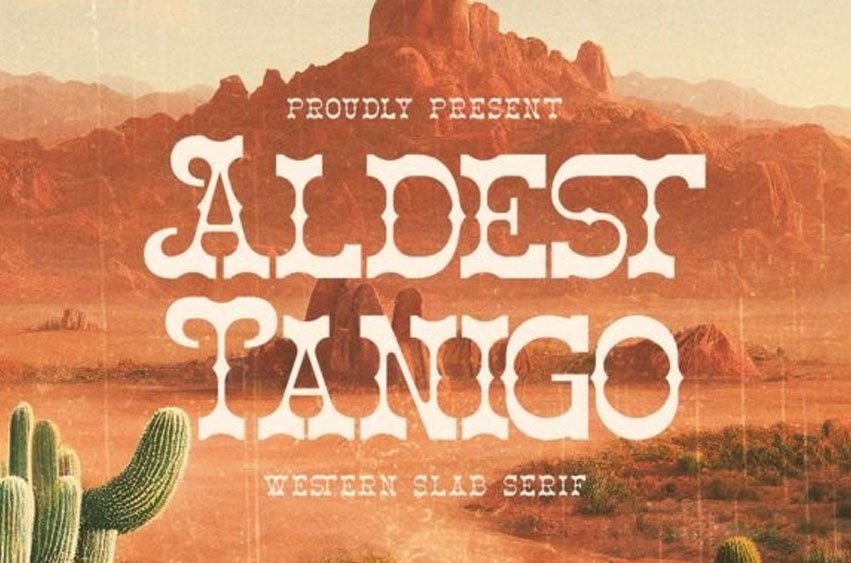
Aldest Tanigo Font is a bold and sturdy font style with a classic Western look.
Its thick, slab serifs give it a strong and confident appearance, making it ideal for headlines and titles that need to stand out.
Aldest Tanigo Font is a bold and sturdy font style with a classic Western look.
Its thick, slab serifs give it a strong and confident appearance, making it ideal for headlines and titles that need to stand out.